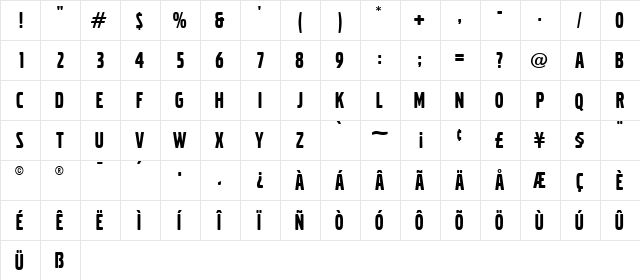
VolvoBroad Regular
Design Context for VolvoBroad Typeface
VolvoBroad offers clean, dependable letterforms without strong stylistic allegiance, making it a practical choice for designers who need flexibility.